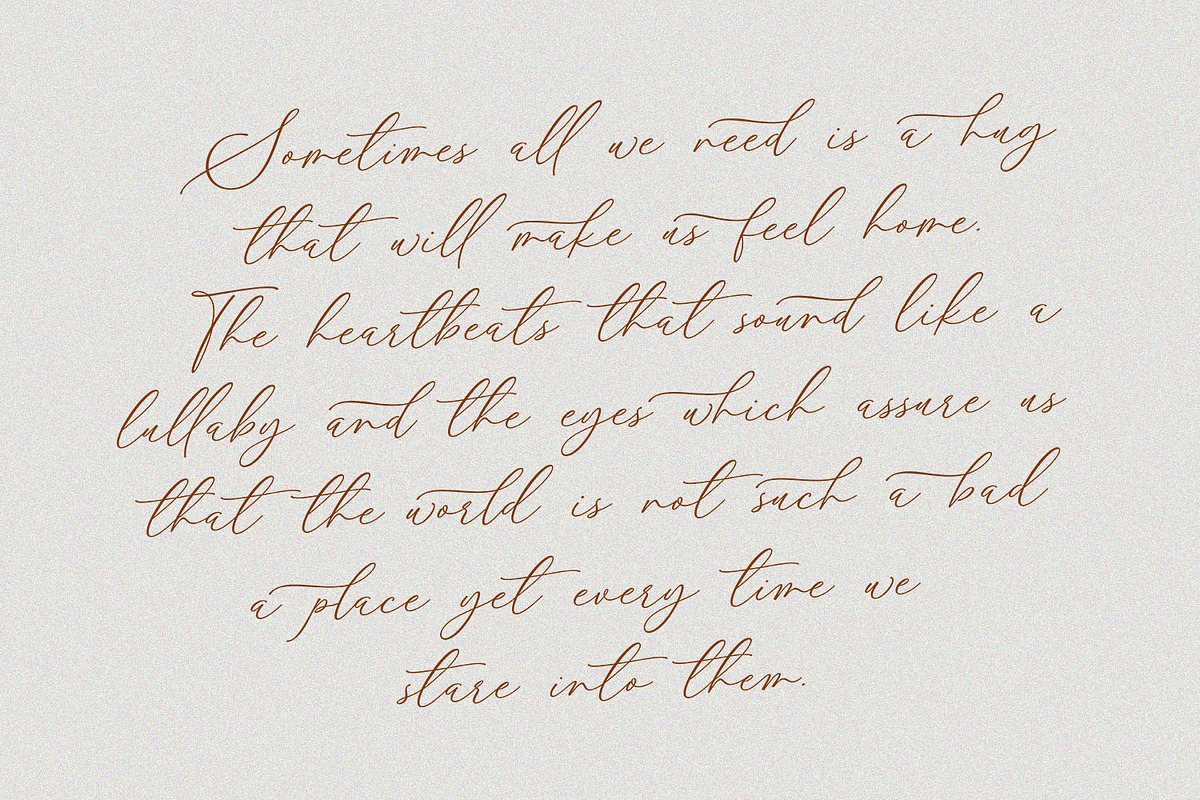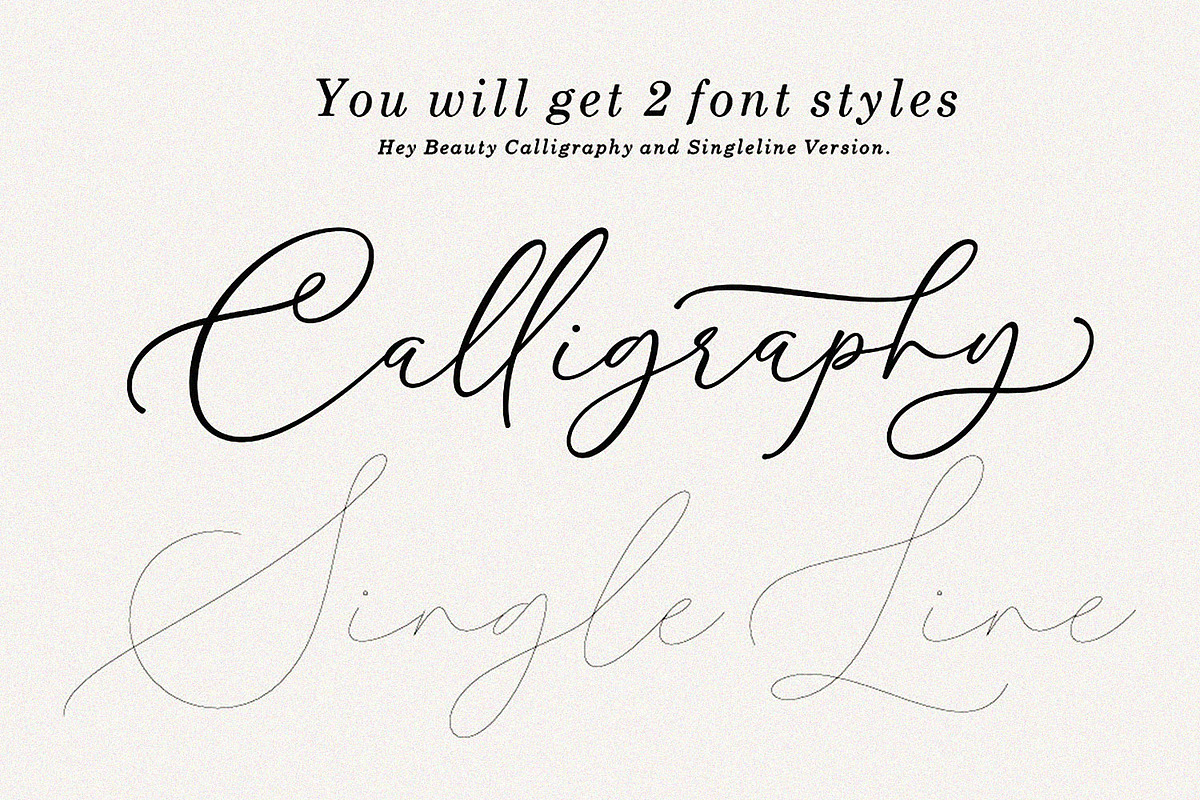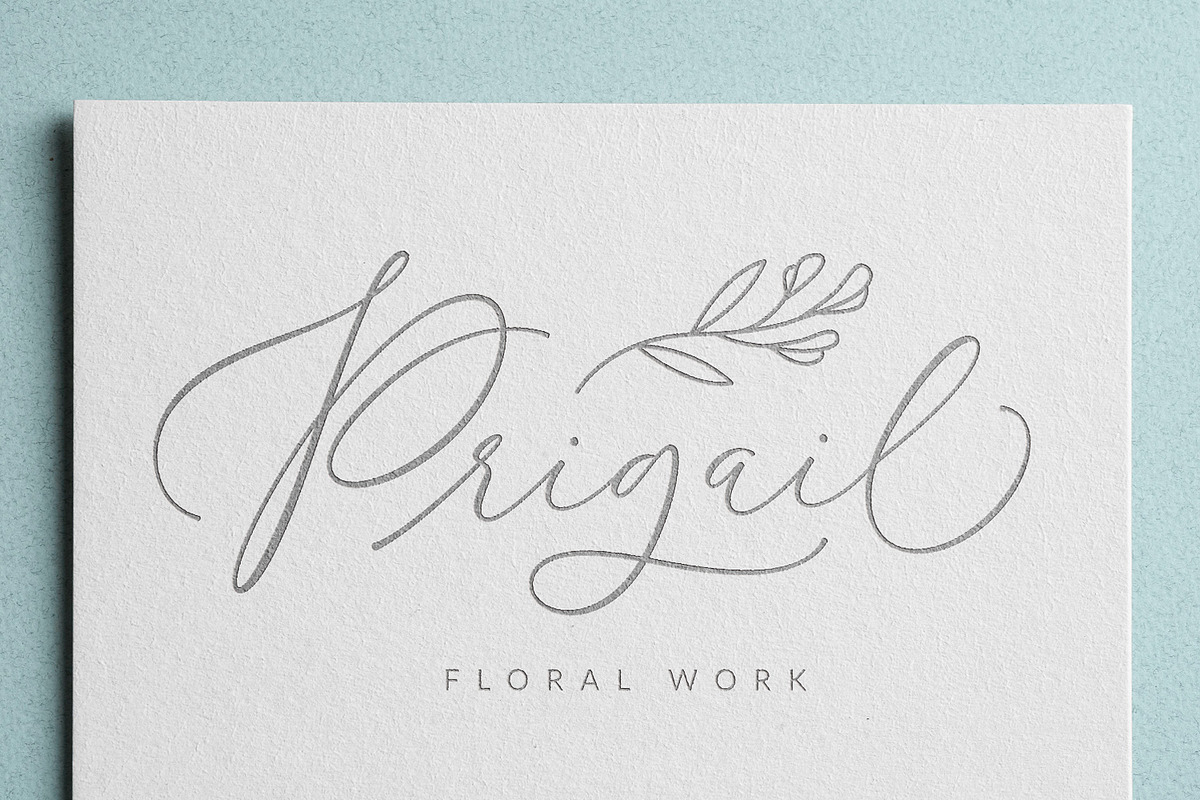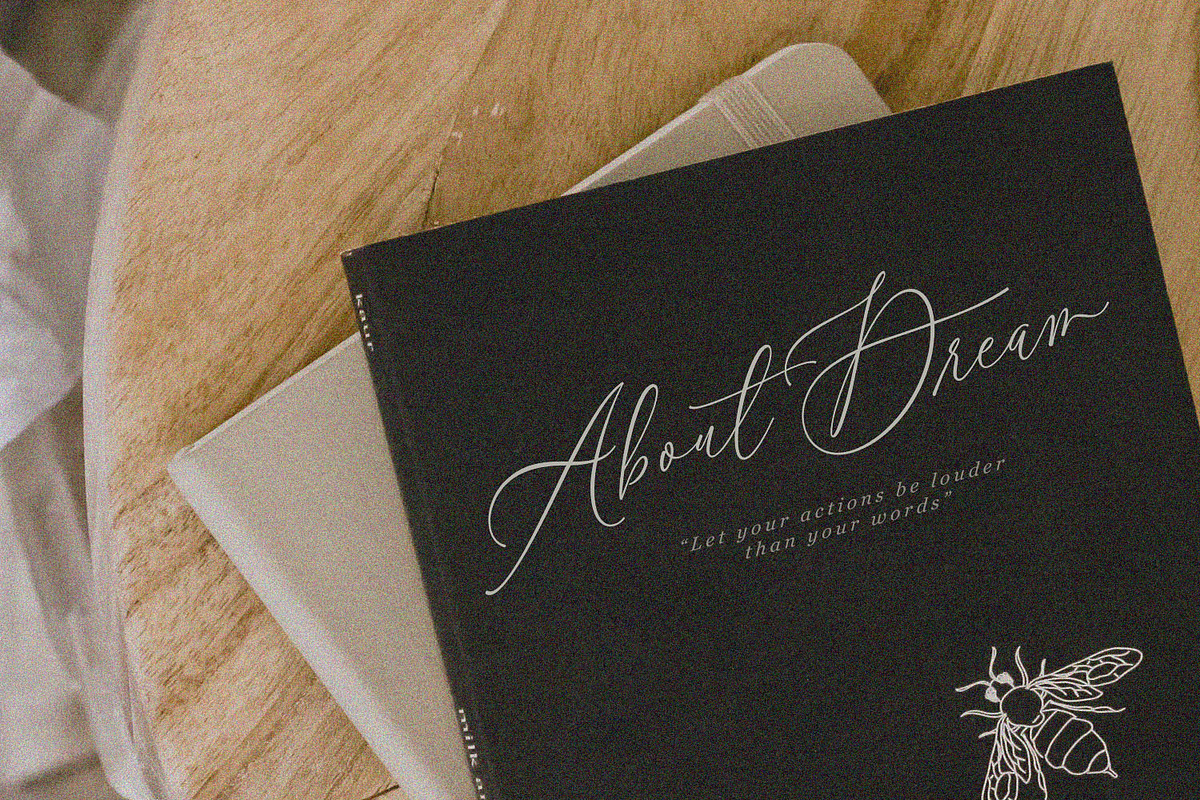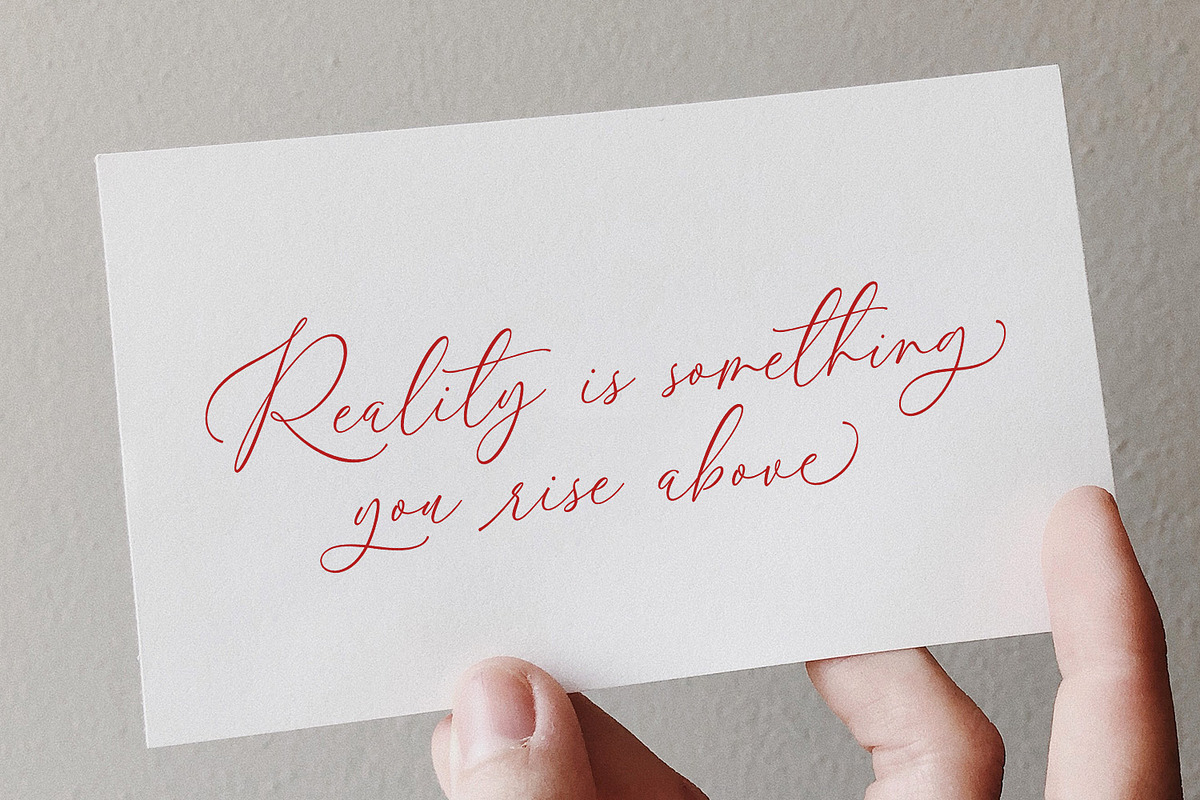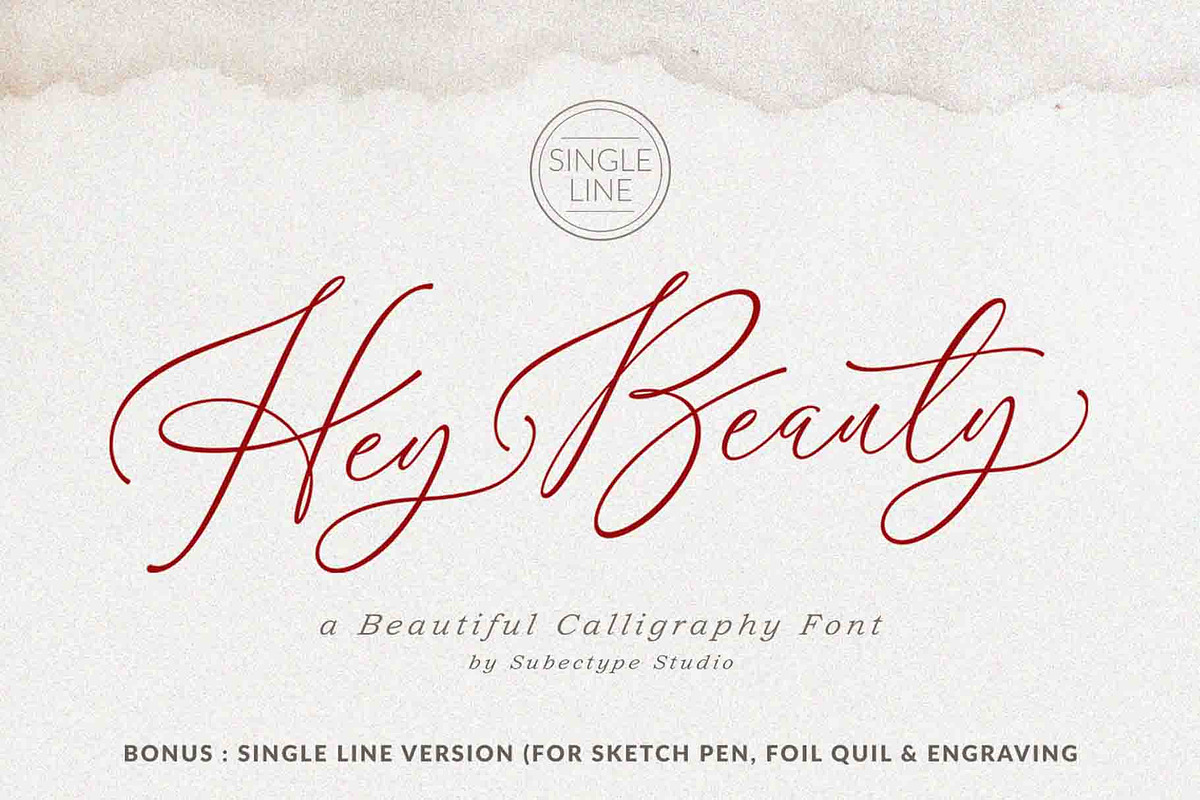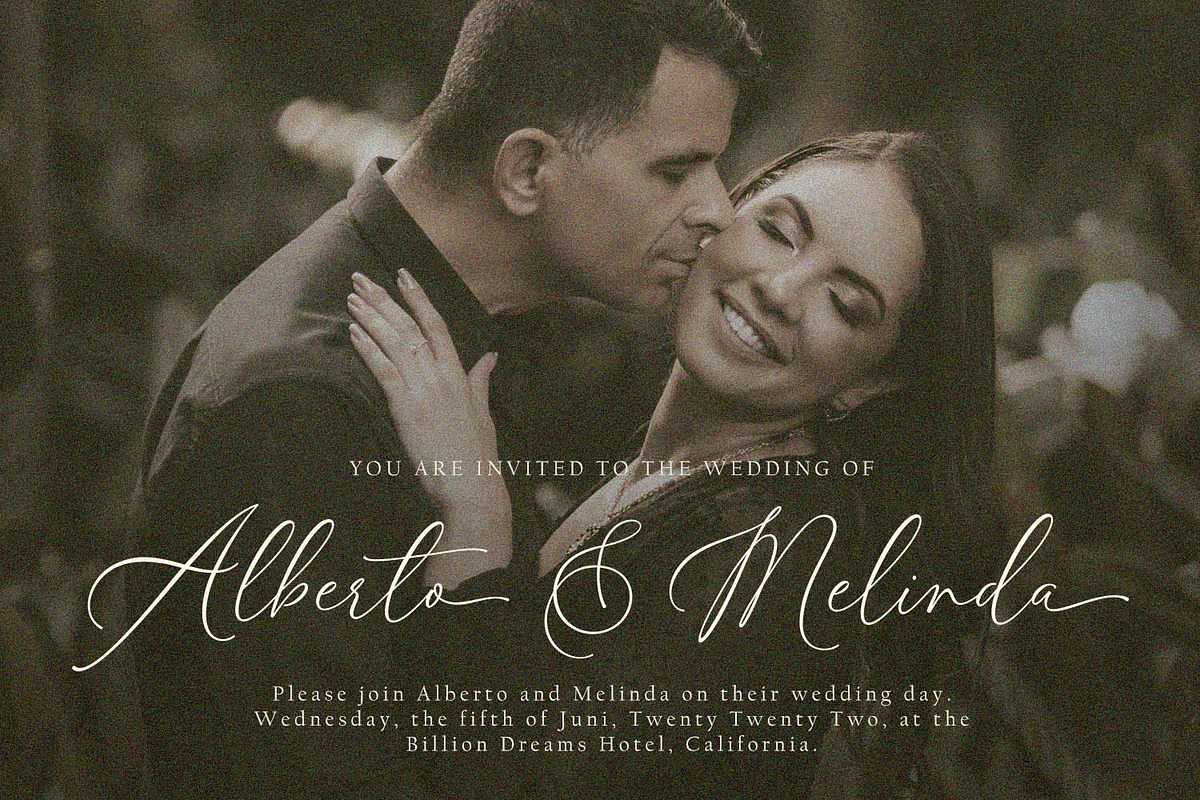
Hey Beauty - Modern Calligraphy font
Hey Beauty is a Chic and Lovely Calligraphy font, described by a Love touch with natural handwritten style, perfect for your favorite projects. Fall in love with its incredibly distinct and timeless style and use it to create spectacular designs!